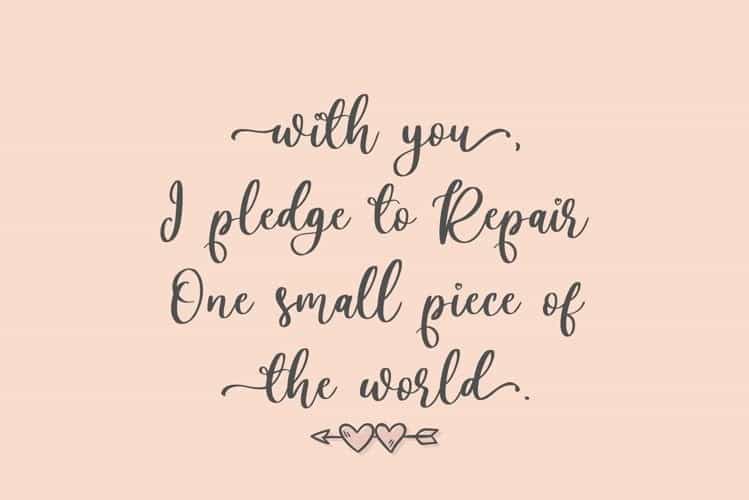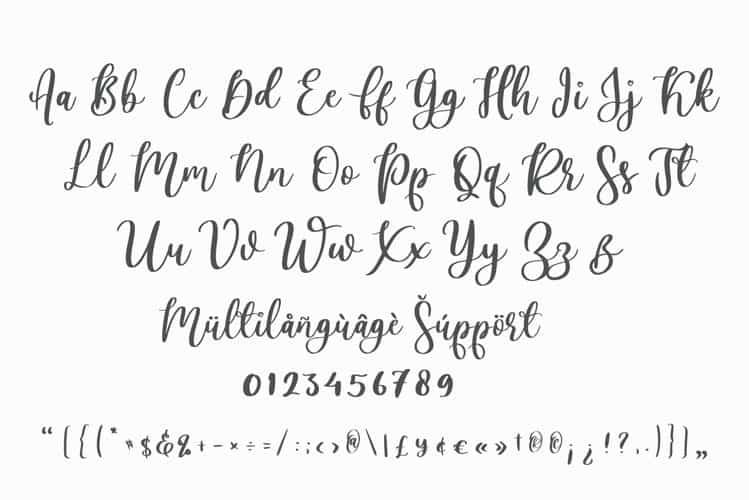
Lovely Ampersand is a calligraphy script font tailored for creating striking logos, expressive lettering projects, inspirational quotes, product packaging designs, captivating headlines, eye catching posters appealing social media content & charming greeting cards.